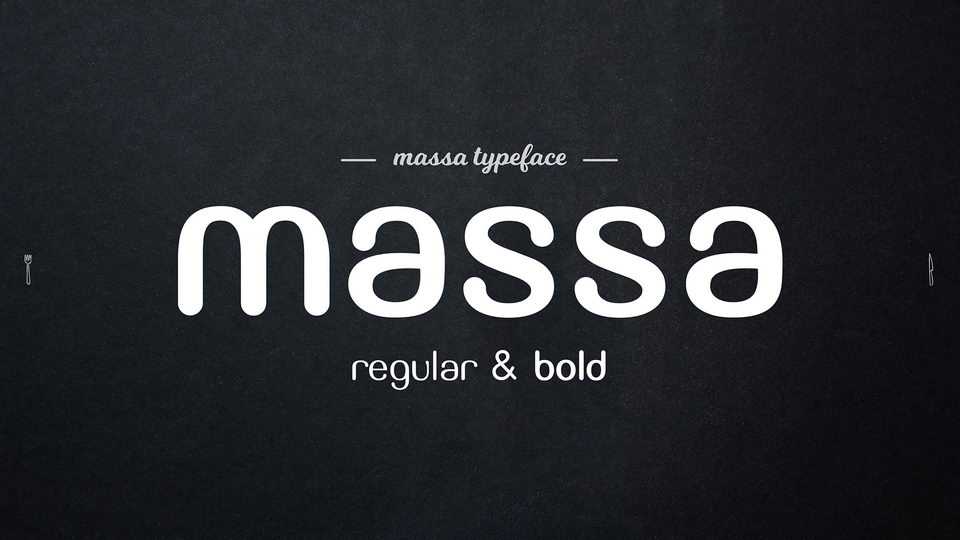
Download Massa typeface, a creative sans serif typeface in Regular and Bold weights inspired by baking and bread. Massa font family perfectly fits for branding, packaging and merchandise, menus, cards and more.
Designer: Tino Mendes